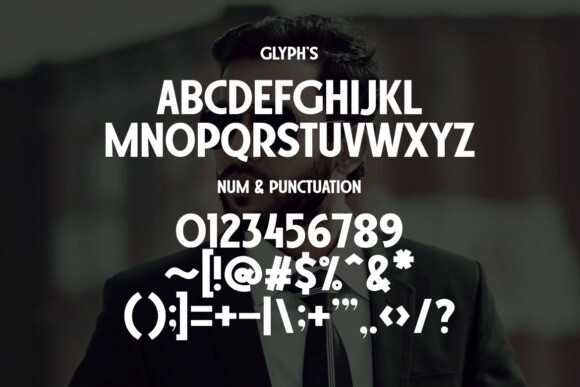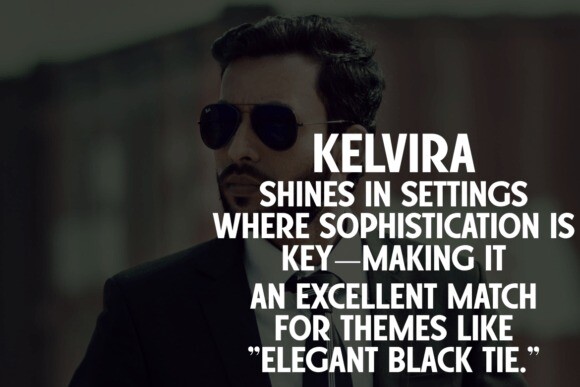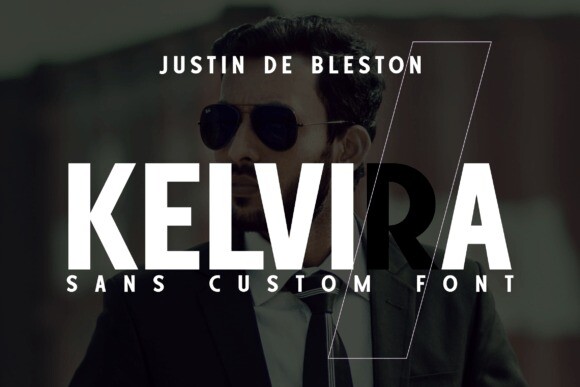
Kelvira Font
Kelvira Font, a font that exudes elegance and sophistication. It’s truly the perfect attire for your text, taking inspiration from high-fashion clothing and jacket modeling products. Tailor-made for those seeking a casual yet polished style, Kelvira effortlessly bridges the gap between relaxed and refined. A font perfect for the modern man, it’ll add a masculine touch to your designs. Experience the blend of fashion-forward style and everyday practicality with Kelvira.